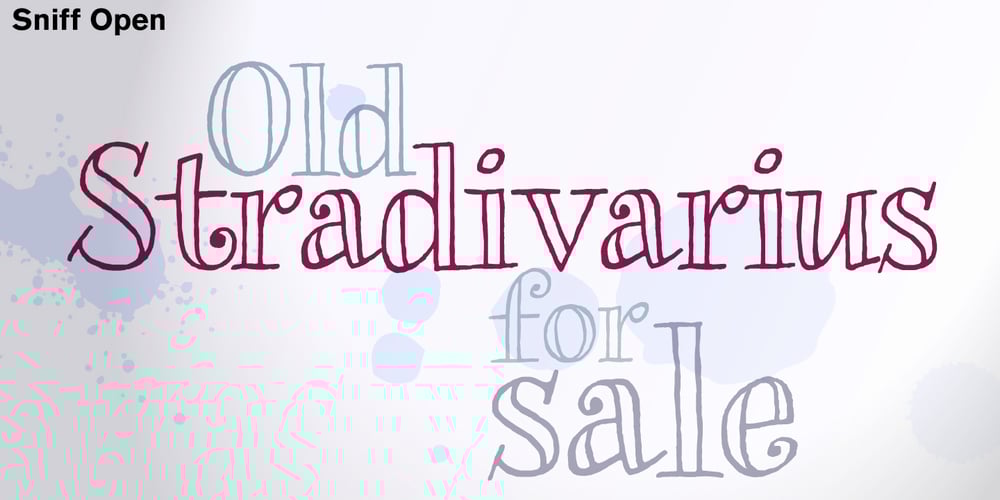
Sniff Font Family was designed by Joan Barjau and published by Type-Ø-Tones. Sniff contains 4 styles and family package options. Joan Barjau used the pseudonym “Sniff” while working as a cartoonist for the Spanish satirical magazine “El Papus”, and Sniff is also the typeface based on the style of lettering he used for the balloons. Sniff is back in our catalog with a new impetus and an extra style: Open. The four styles incorporate Small Caps, Numerals, ornaments and various OpenType features.